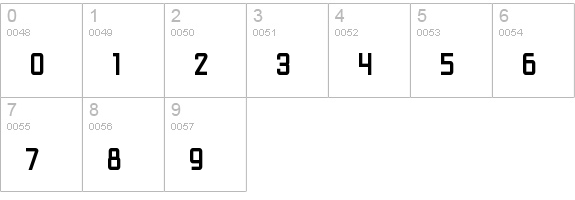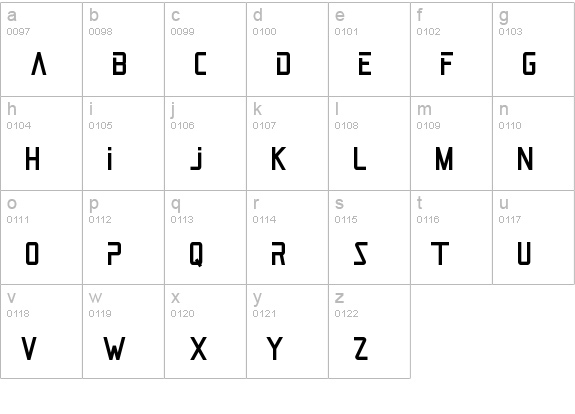
Jet Pilot - Sans Family is a modern and versatile font family that exudes a sleek and futuristic vibe. With its clean lines and sharp edges, this font is perfect for creating eye-catching designs for various projects. Whether you're working on a website, branding materials, or print designs, Jet Pilot - Sans Family is sure to make a bold statement.
This font family includes various weights and styles, giving you plenty of options to play around with and find the perfect fit for your project. The fonts are designed to be highly legible, making them suitable for both large headline text and smaller body copy.